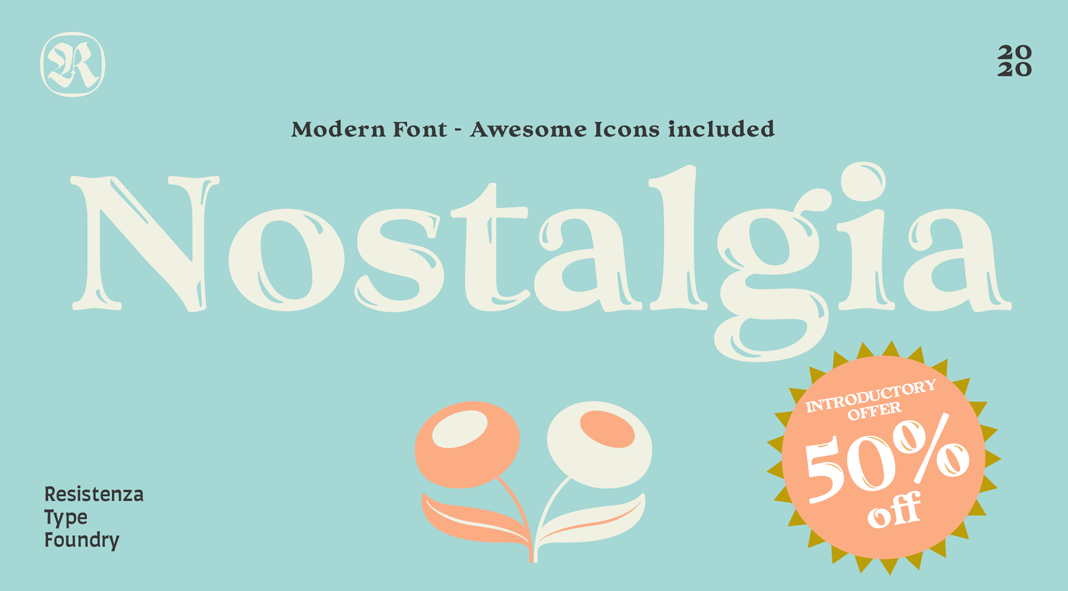
Nostalgia, a playful yet elegant vintage-inspired serif font from foundry Resistenza.
Designed by Giuseppe Salerno and Paco González of type foundry Resistenza, Nostalgia is a font with a playful yet elegant vintage-inspired look. The typeface is accompanied by sets of retro effects and flower ornaments. Using this beautiful font, you can create typographic work in the style of magazines and graphics from the 1970s. Read more below or click on one of the following links to purchase this beautiful vintage serif font.
The Nostalgia font is a modern interpretation of typography and graphic design trends from the 1970s. The designers Giuseppe Salerno and Paco González wanted to create a typeface that conveys a positive mood with soft edges and rounded terminations. These letterforms offer a contemporary take on this graphic approach. Nostalgia is also equipped with an extended set of alternate letters & swashes specially designed to create stylish lettering pairings. Just click on one of the following links to get further information on all typographic features.